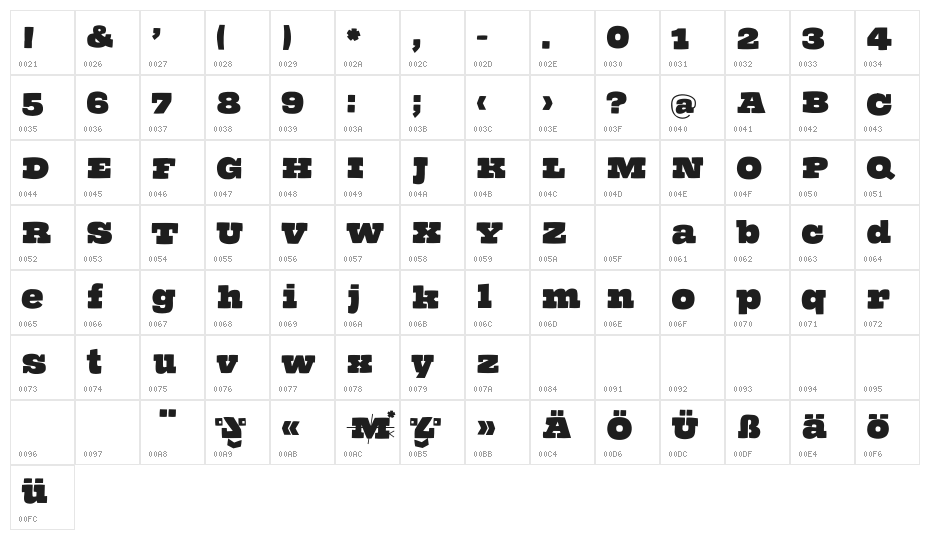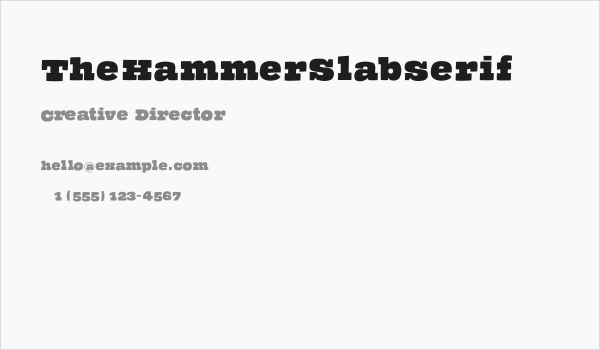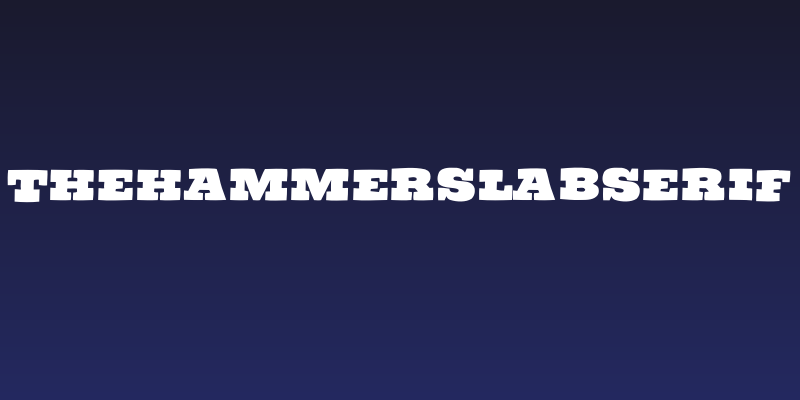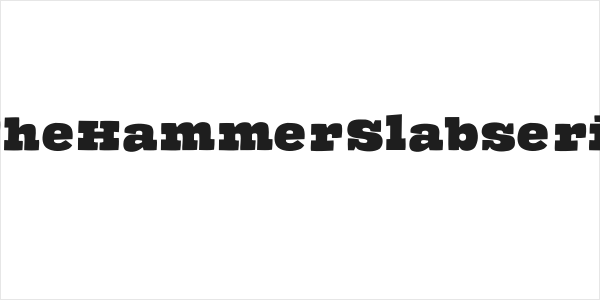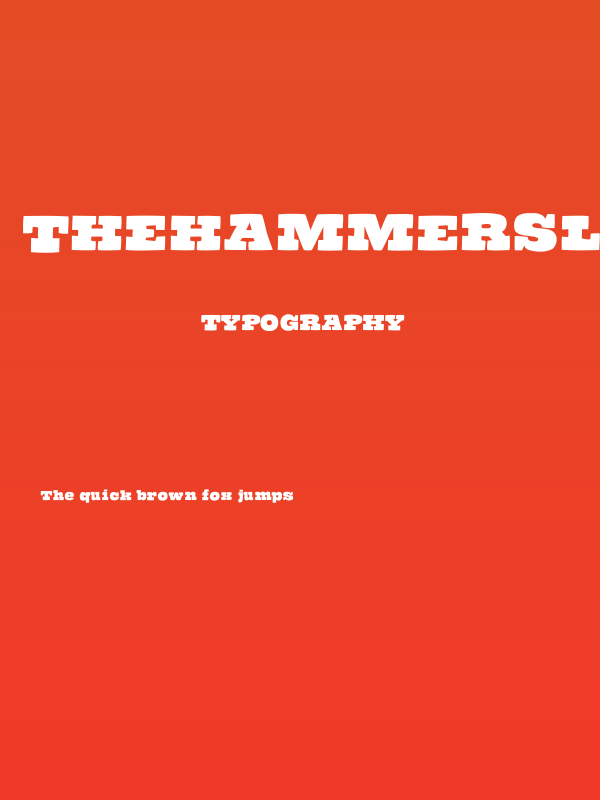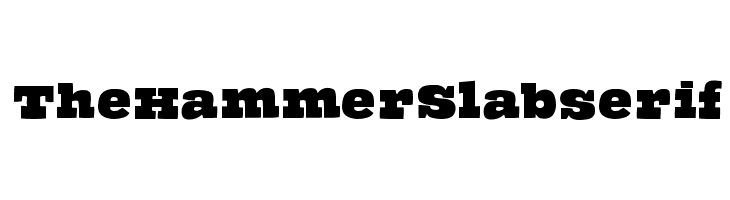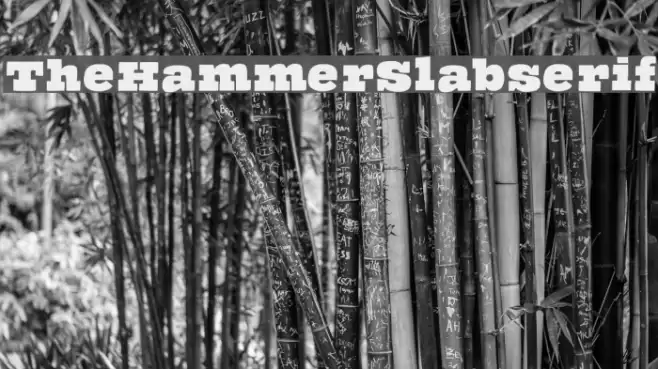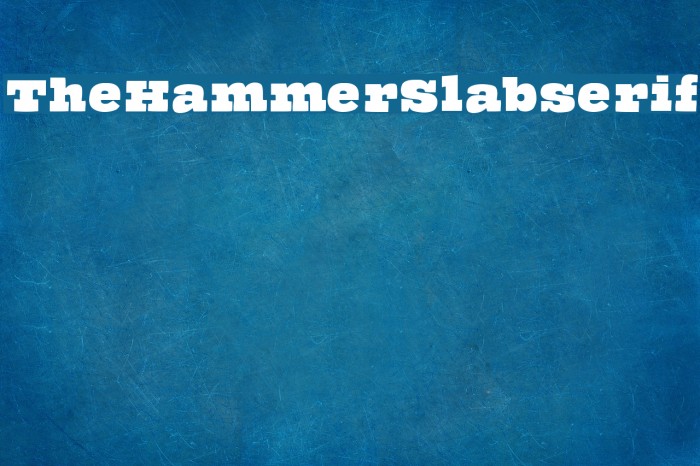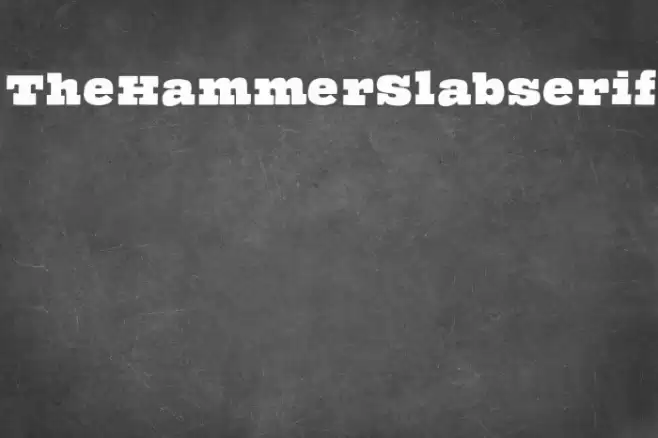
TheHammerSlabserif Font
TheHammerSlabserif Description
This font is a bold and robust slab serif typeface, characterized by its thick, block-like serifs and strong presence. The uppercase letters are particularly striking, with a commanding weight that makes them ideal for attention-grabbing headlines. The lowercase letters maintain the same boldness, ensuring consistency across different text sizes. Numbers and special characters are equally bold, providing a cohesive look throughout. The font's design is reminiscent of vintage poster typefaces, yet it retains a modern appeal, making it versatile for various design needs.
THEHAMMERSLABSERIF UPPERCASE
THEHAMMERSLABSERIF LOWERCASE
THEHAMMERSLABSERIF OTHER CHARS
| Overall Style | Vintage, Modern |
| Proposed Projects | Ideal for posters, headlines, branding, and any design requiring a strong, impactful typeface. |